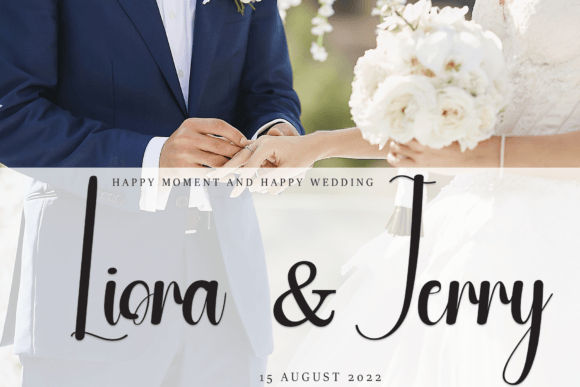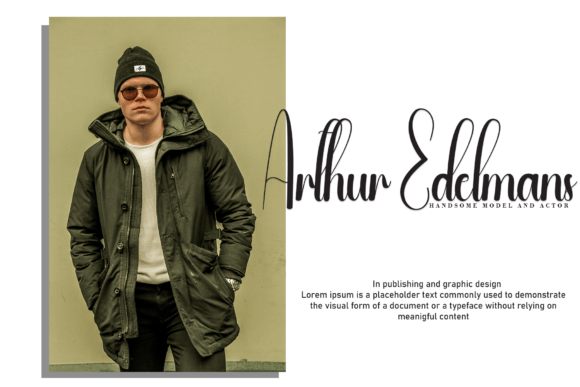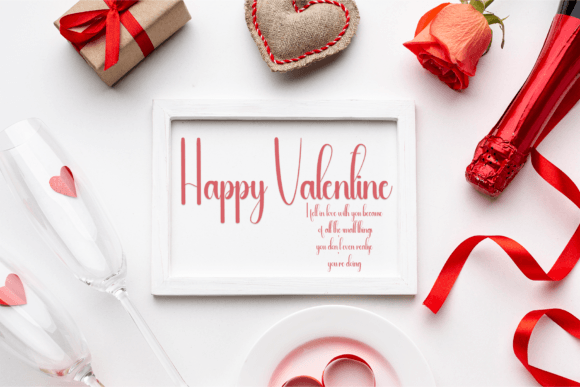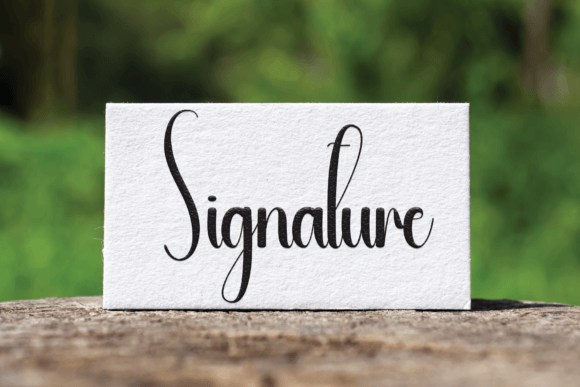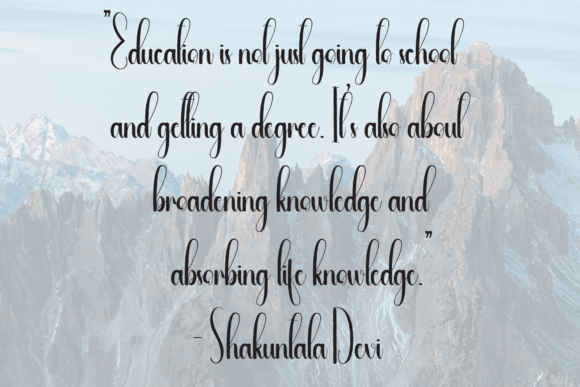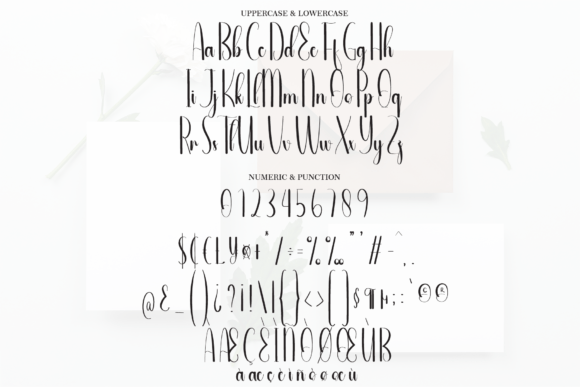
Introducing Envelope Font: The Sweet and Friendly Handwritten Font for Your Creative Projects
Are you looking for a font that can add a touch of warmth and personality to your designs? Look no further than Envelope Font, a sweet and friendly handwritten font that’s perfect for a variety of creative projects. In this article, we’ll take a closer look at Envelope Font, its features, and how you can use it to elevate your designs.
What is Envelope Font?
Envelope Font is a beautiful, handwritten font that’s designed to bring a sense of freshness and neatness to your designs. With its sweet and friendly tone, this font is ideal for writing wedding invitations, cards, or any other design that might need a fun touch. Whether you’re a designer, crafter, or DIY enthusiast, Envelope Font is a versatile font that can be used for a wide range of projects.
Key Features of Envelope Font
- Handwritten style: Envelope Font has a beautiful, handwritten style that’s perfect for adding a personal touch to your designs.
- Sweet and friendly tone: This font has a warm and inviting tone that’s sure to make your designs stand out.
- Fresh and neat: Envelope Font is designed to be fresh and neat, making it perfect for designs that require a clean and modern look.
- Versatile: This font can be used for a wide range of projects, from wedding invitations and cards to posters, flyers, and more.
How to Use Envelope Font in Your Designs
Envelope Font is easy to use and can be incorporated into your designs in a variety of ways. Here are a few ideas to get you started:
- Wedding invitations: Use Envelope Font to create beautiful, handmade-style wedding invitations that will set the tone for your special day.
- Greeting cards: Add a personal touch to your greeting cards with Envelope Font, perfect for birthdays, holidays, and other special occasions.
- Posters and flyers: Use Envelope Font to create eye-catching posters and flyers that will grab attention and stand out.
- DIY projects: Envelope Font is perfect for DIY enthusiasts who want to add a personal touch to their projects, such as scrapbooking, journaling, and more.
Tips for Getting the Most Out of Envelope Font
Here are a few tips for getting the most out of Envelope Font:
- Experiment with different colors: Try pairing Envelope Font with different colors to create a unique and eye-catching look.
- Use it with other fonts: Combine Envelope Font with other fonts to create a beautiful and harmonious design.
- Play with font sizes: Experiment with different font sizes to create visual interest and hierarchy in your designs.
Envelope Font is a sweet and friendly handwritten font that’s perfect for designers, crafters, and DIY enthusiasts who want to add a personal touch to their designs. With its fresh and neat style, this font is ideal for a wide range of projects, from wedding invitations and cards to posters, flyers, and more. Whether you’re looking to create a beautiful wedding invitation or a fun and playful poster, Envelope Font is a versatile font that can help you achieve your design goals.